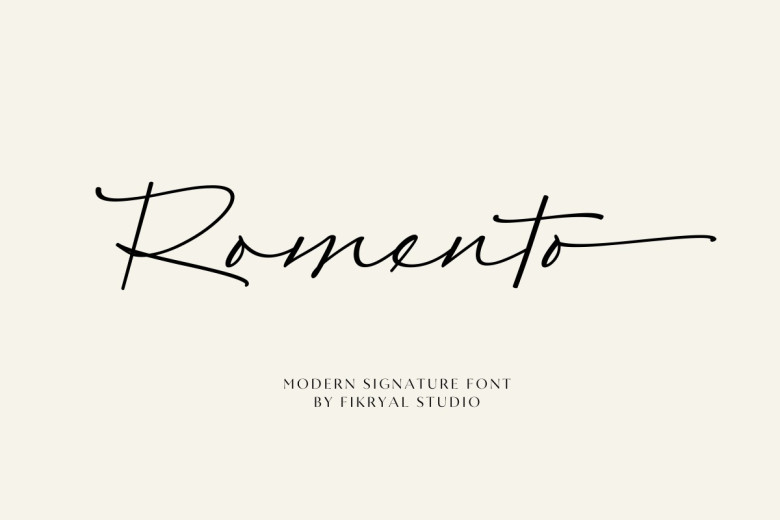
Romento Font
Romento Modern Signature Font combines modernity and elegance for an eye-catching and luxurious appearance. Featuring its sophisticated design, Romento adds a hint of classic while staying current with current designs. Font is enhanced with lowercase characters swashes that offer an eye-catching and creative touch to any design project.
Swashes specifically tailored to accommodate alternative alphabets for lowercase letters offer your design ideas greater versatility and allow for greater creativity. With these decorative elements and individualized touches to text, swashes can add visual interest and depth to designs concepts, making them more engaging and captivating.
Romento Modern Signature Font adds a contemporary aesthetic to your designs such as logos, marketing material or other projects by offering special swash characters that enhance typography aesthetic.
Romento Signature Script Font